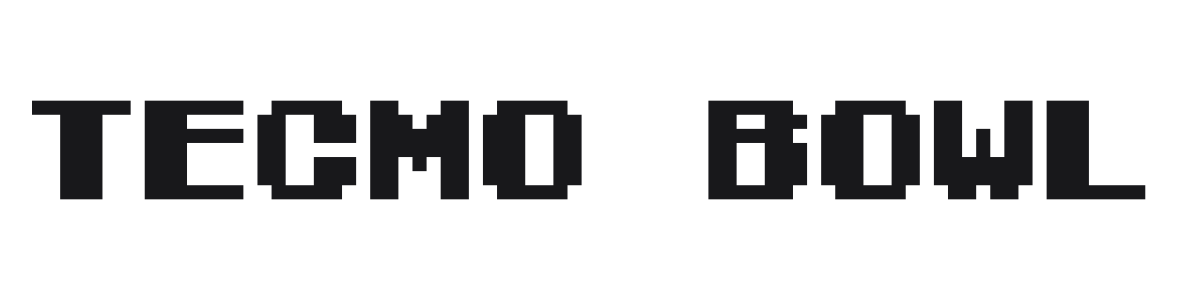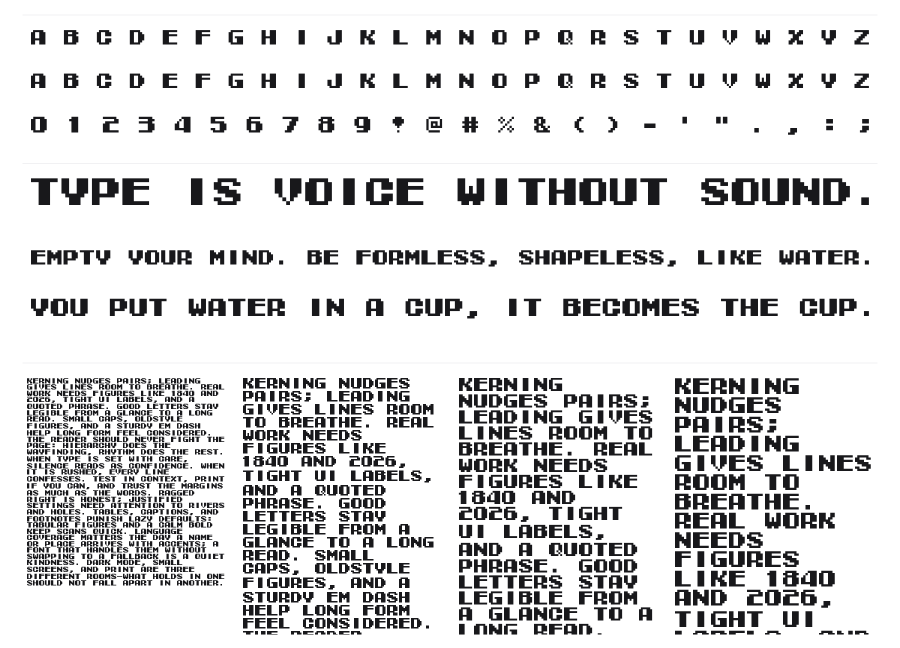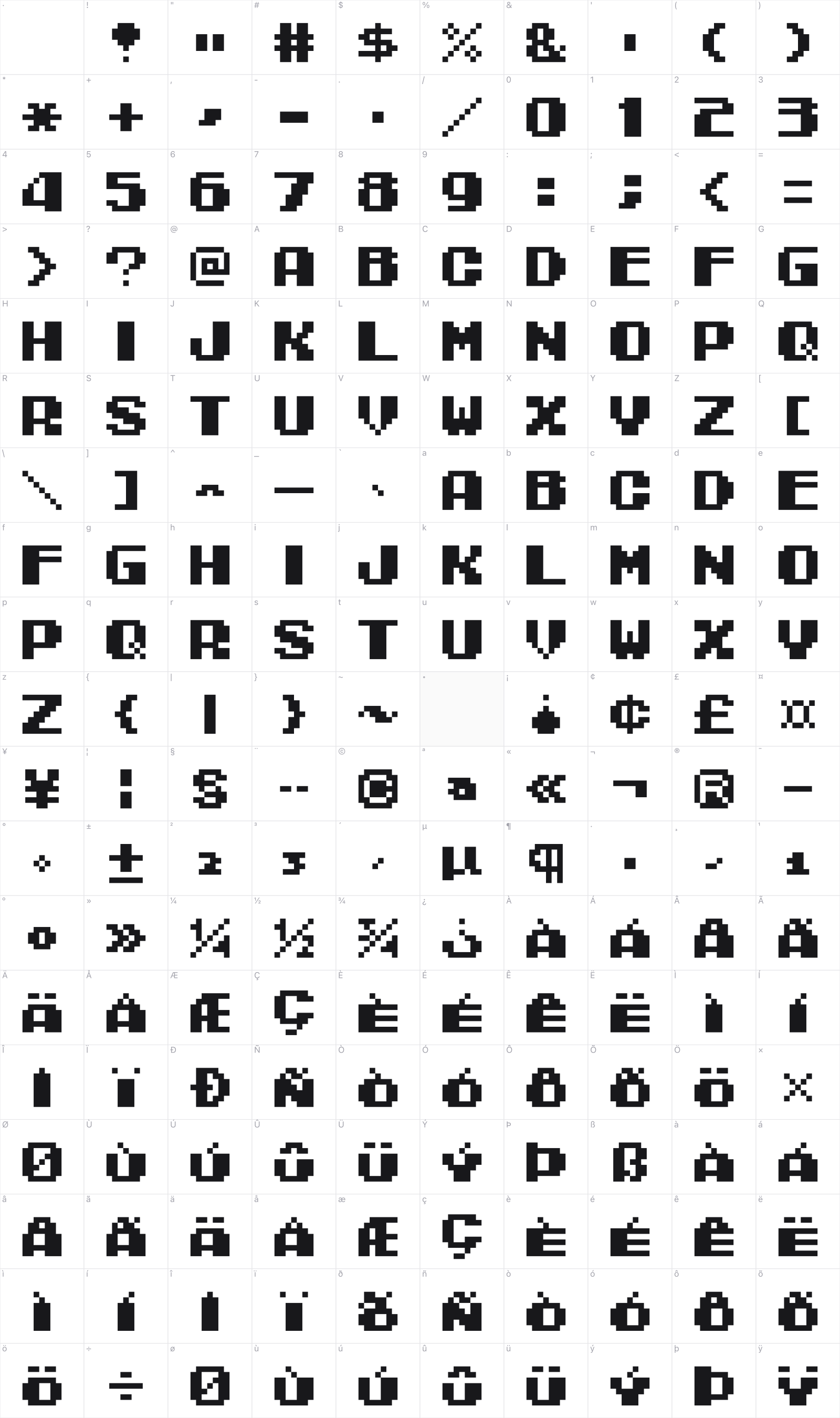
Tecmo Bowl
Tecmo Bowl is a heavy pixel bitmap font inspired by the classic NES football game's on-screen typography. Built from square pixel units with no stroke contrast, it captures the chunky, blocky energy of 1980s arcade and console sports games. Great for retro gaming projects, sports headlines, and anything that needs that unmistakable 8-bit punch.